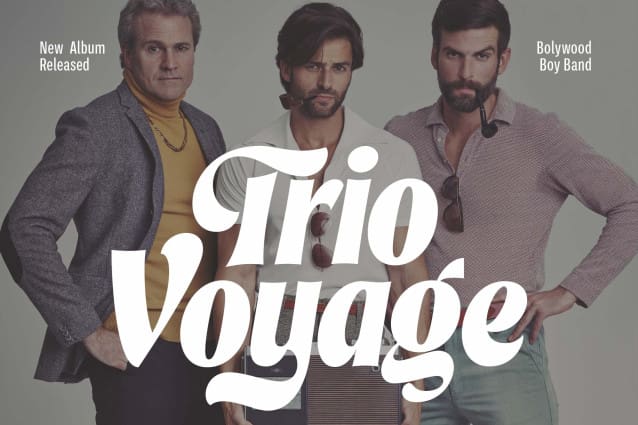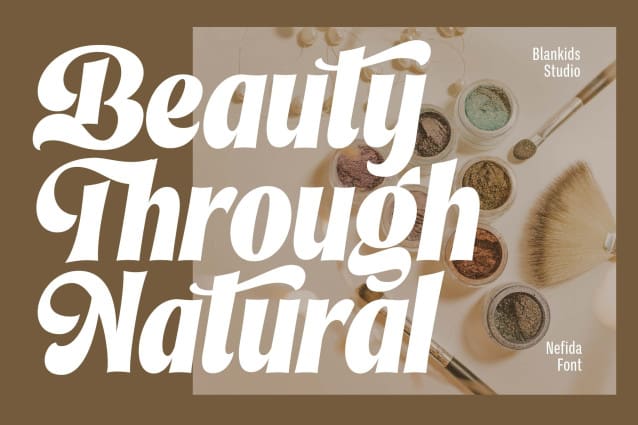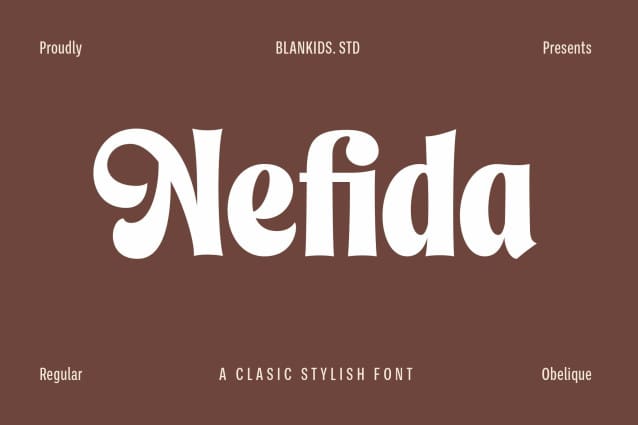
Nefida Display Font
Nefida Display Font a Classy Stylish Font, a captivating sans serif font that beautifully blends retro and modern aesthetics. Perfect for branding, displays, posters, logos, and a wide range of design needs, Nafida stands out with its unique character and versatility.
Nafida comes packed with a variety of ligatures and alternate characters, giving you the creative freedom to tailor your designs to perfection. Whether you’re aiming for a vintage vibe or a sleek, contemporary look, Nafida adapts seamlessly, making it an ideal choice for any project. Elevate your design game with Nafida, the font that offers endless possibilities and exceptional style.